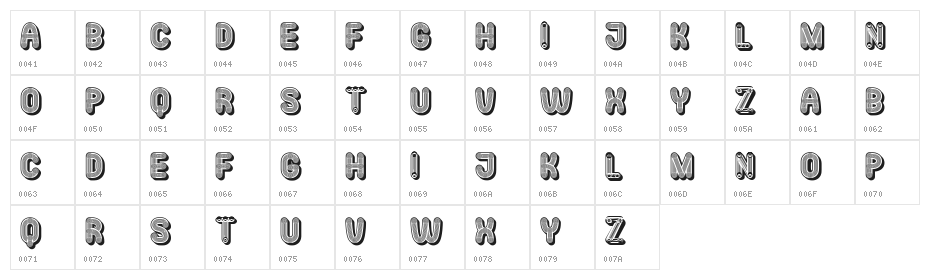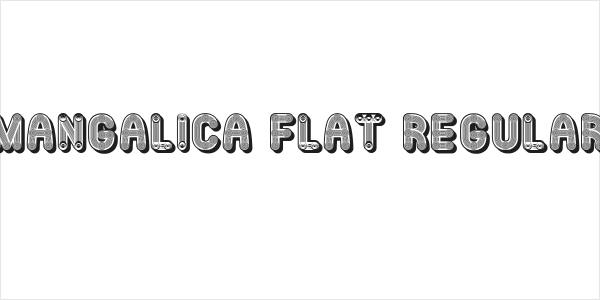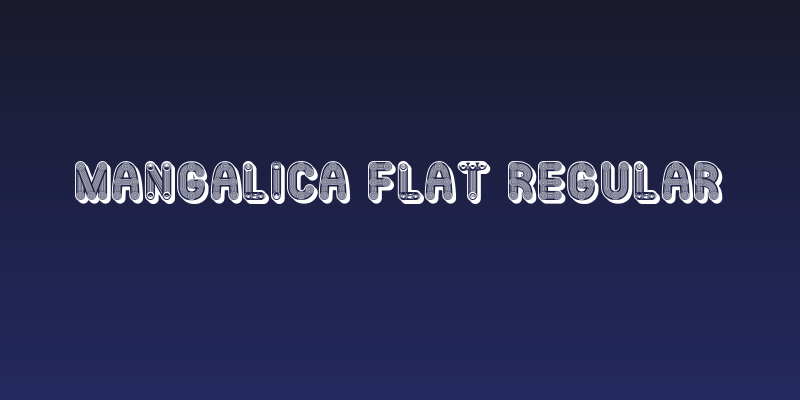
Mangalica Flat Regular Font
Mangalica Flat Regular Description
This font features a bold and playful design with a three-dimensional effect. Each character is outlined with a thick border, giving it a strong presence. The interior of the letters is filled with intricate patterns, adding a decorative touch. The overall appearance is eye-catching and dynamic, making it suitable for creative and artistic projects. The font's style is reminiscent of vintage signage, with a modern twist that makes it versatile for various design needs.
| Overall Style | Vintage, Decorative |
| Proposed Projects | Ideal for posters, branding, packaging, and any project requiring a standout, artistic typeface. |